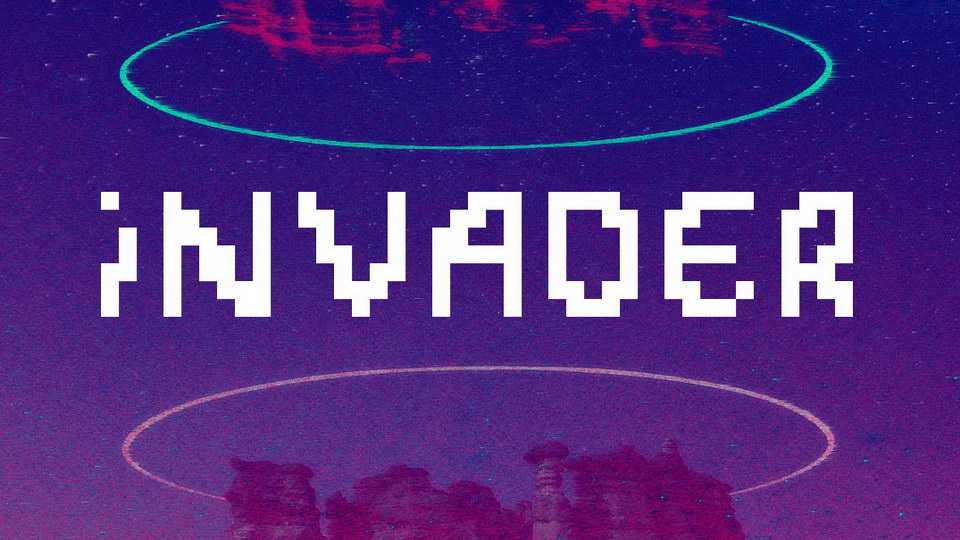
Download Invader font, a cool pixelated display typeface inspired by old arcade game type. The Invader, with its authentic digital feel, is perfect for games, posters, old school graphics and other creative projects.
Designer: Luis H. J. Rapp